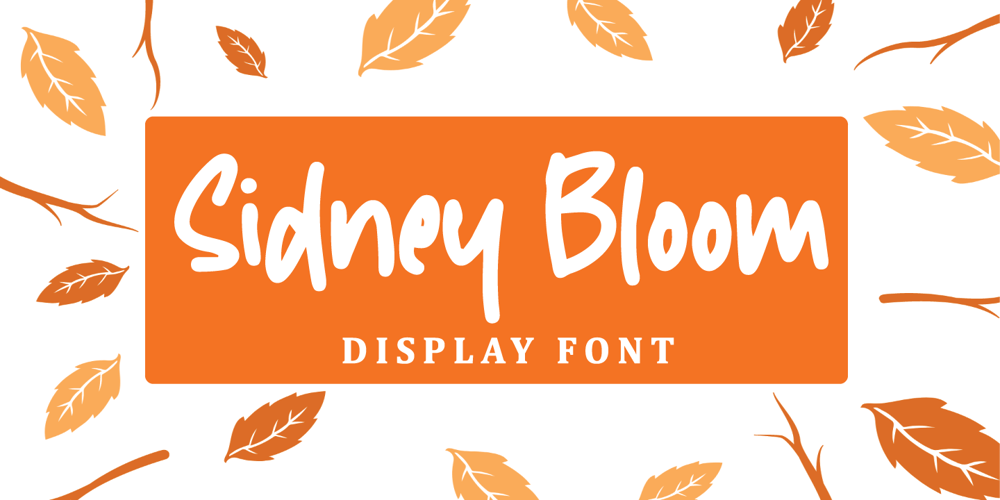
Sidney Bloom Font Family was designed by Lia Almuknisa and published by Fromletterel. Sidney Bloom contains 2 styles and family package options. Sidney Bloom is a handmade display font, it suitable for display because it’s bold and cheerful character, and because it was handmade Sidney Bloom also can be used to any project that need natural writing touch.So get creative with its playfulness, and use it to brighten up any project!